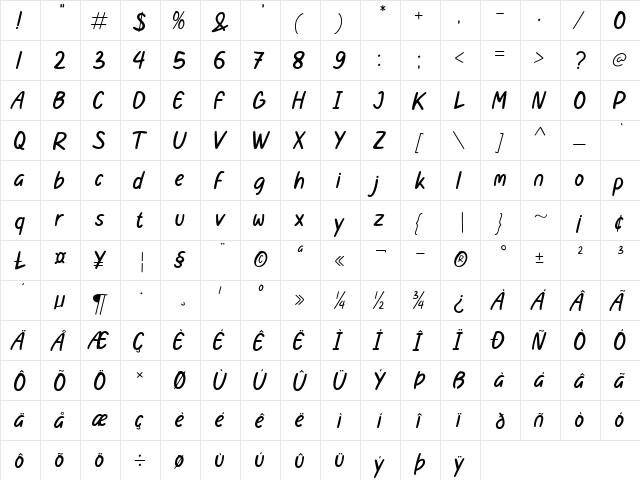
Lovie Reguler
| Foundry | Greafora Creative |
| Designer | Greafora Creative |
Design Context for Lovie Typeface
Lovie takes a measured approach to typography — its balanced proportions and neutral character make it a reliable workhorse for both digital and print work.